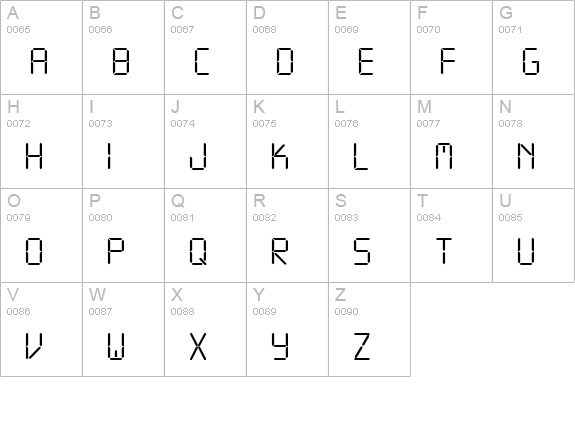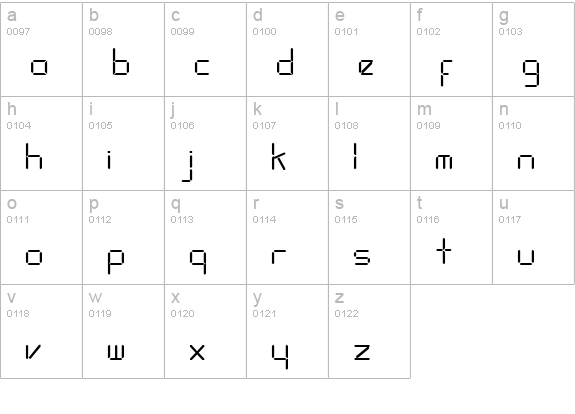
FFX LCD Font Details
The FFX LCD font is a sleek and modern typeface designed for digital displays and tech-related projects. This futuristic font features sharp, angular lines and a clean, minimalist design that is perfect for conveying a high-tech and cutting-edge aesthetic. The FFX LCD font is versatile and can be used for a variety of design projects, from websites to digital signage to app interfaces. Best of all, the FFX LCD font is completely free to download at FontsMarket.com. This means that you can easily access this stylish and contemporary font without any cost, making it a great choice for designers looking to add a touch of modernity to their projects. Download the FFX LCD font today and elevate your design with its sleek and futuristic appeal.